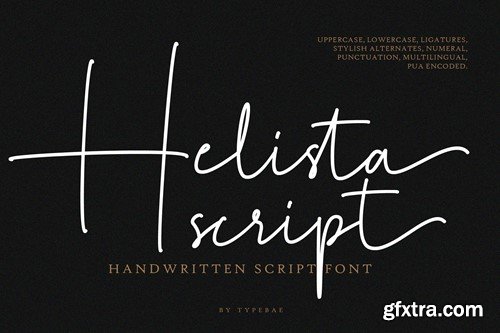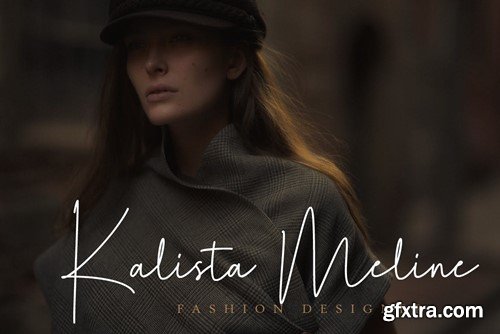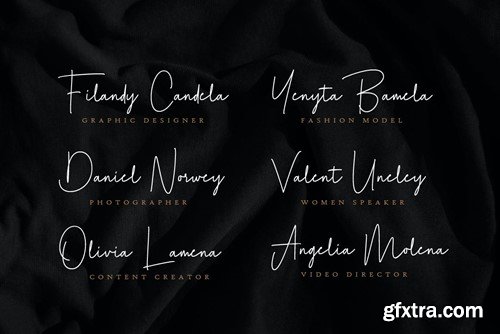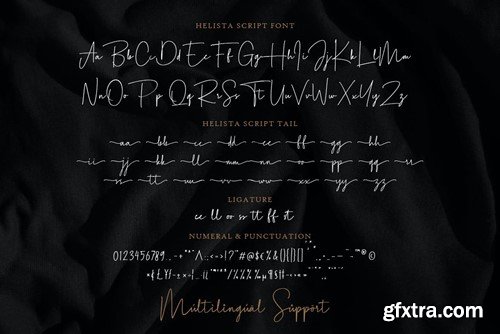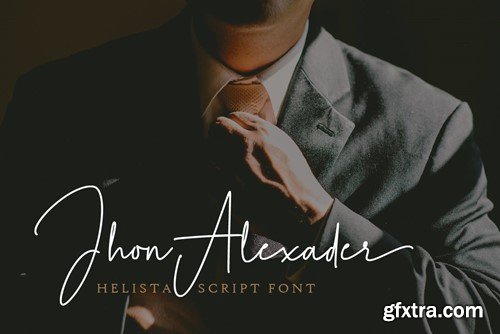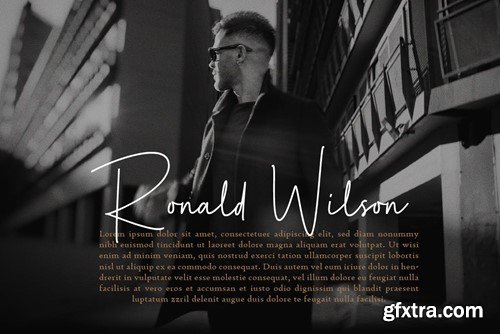
Helista Script Font
Helista Script is an exquisite and refined handwritten signature script font that exudes elegance. It features beautifully designed beginning and ending swashes, adding a touch of sophistication to any written text. To use beginning and ending swashes (tail), you don't need to use software that supports opentype, because we have made it separately so it's very easy to use.
• Helista Script Regular & Tail
• Full alphabet and punctuation
• Ligature & alternate feature
• Multilingual Support: Afrikaans, Basque, Breton, Catalan, Danish, Dutch, English, Finnish, French, Gaelic (Irish, Scots), German, Icelandic, Indonesian, Irish, Italian, Norwegian, Portuguese, Saami (Southern), Spanish, Swahili, Swedish.